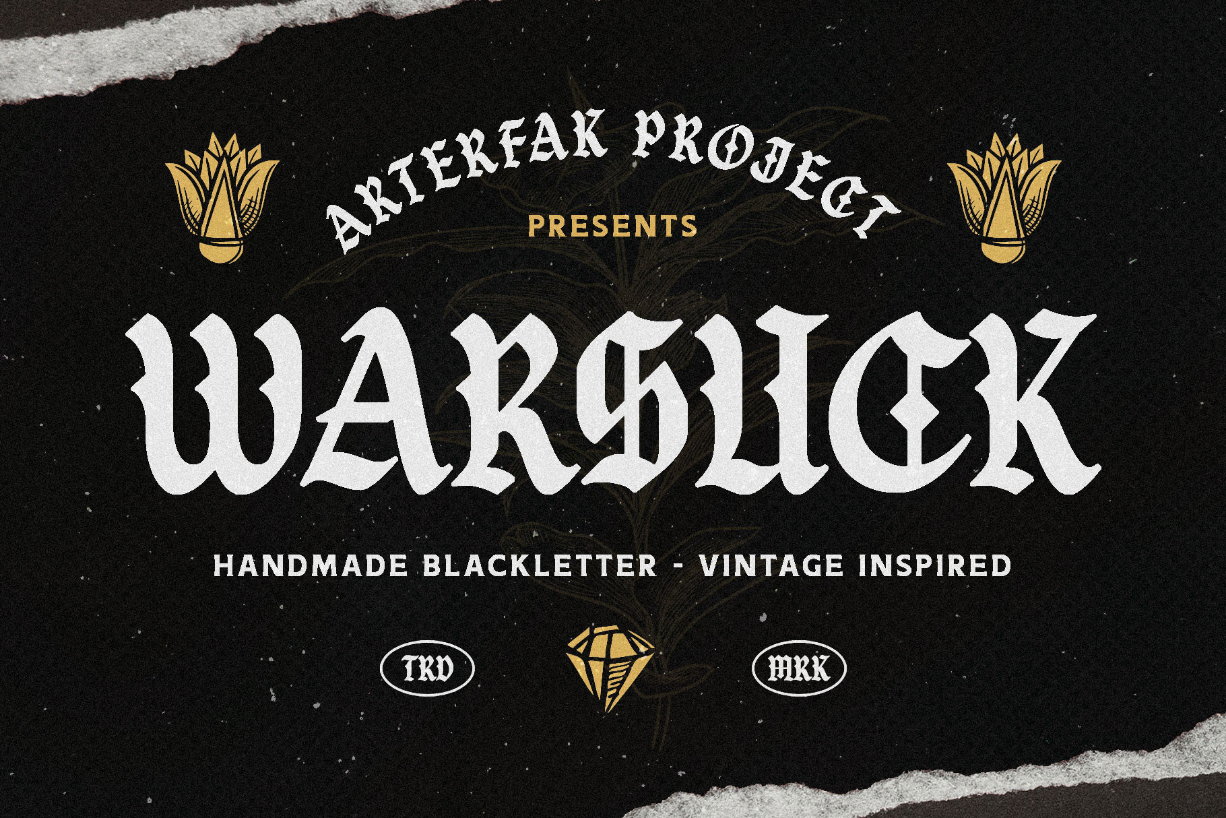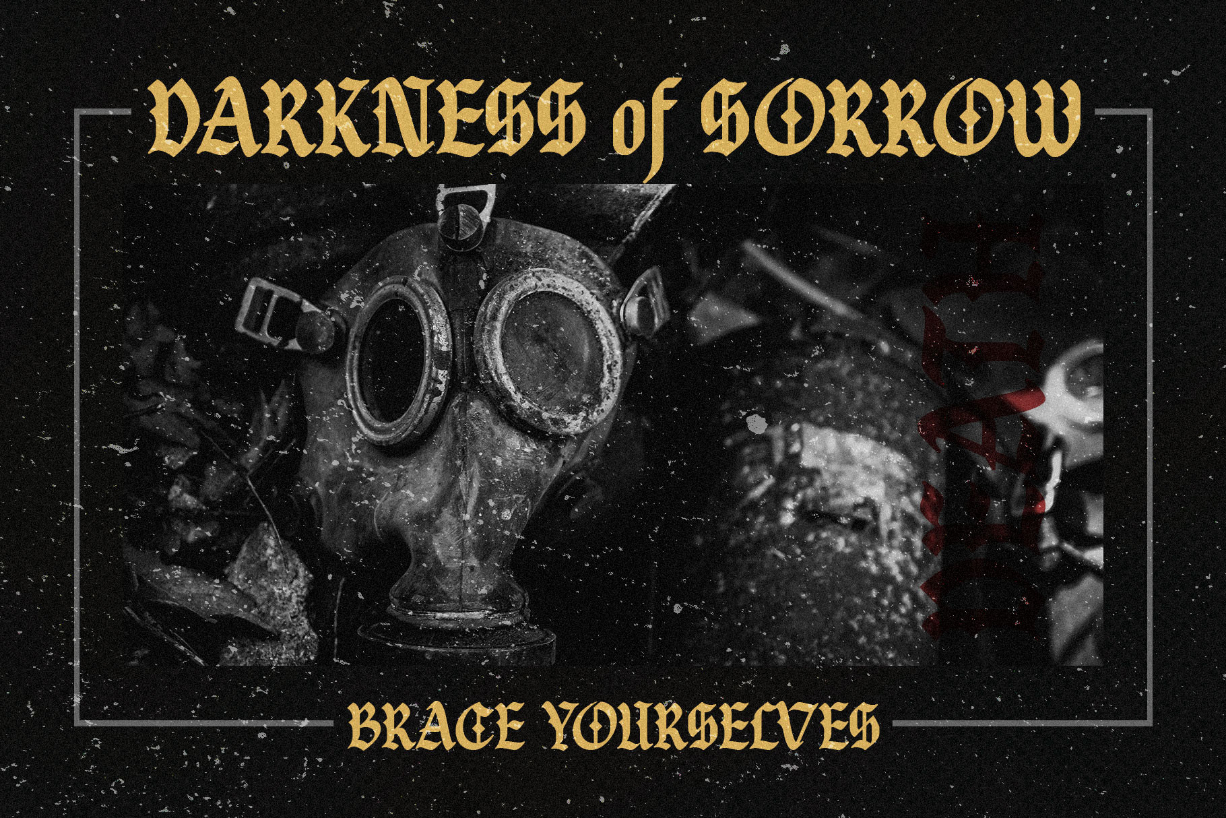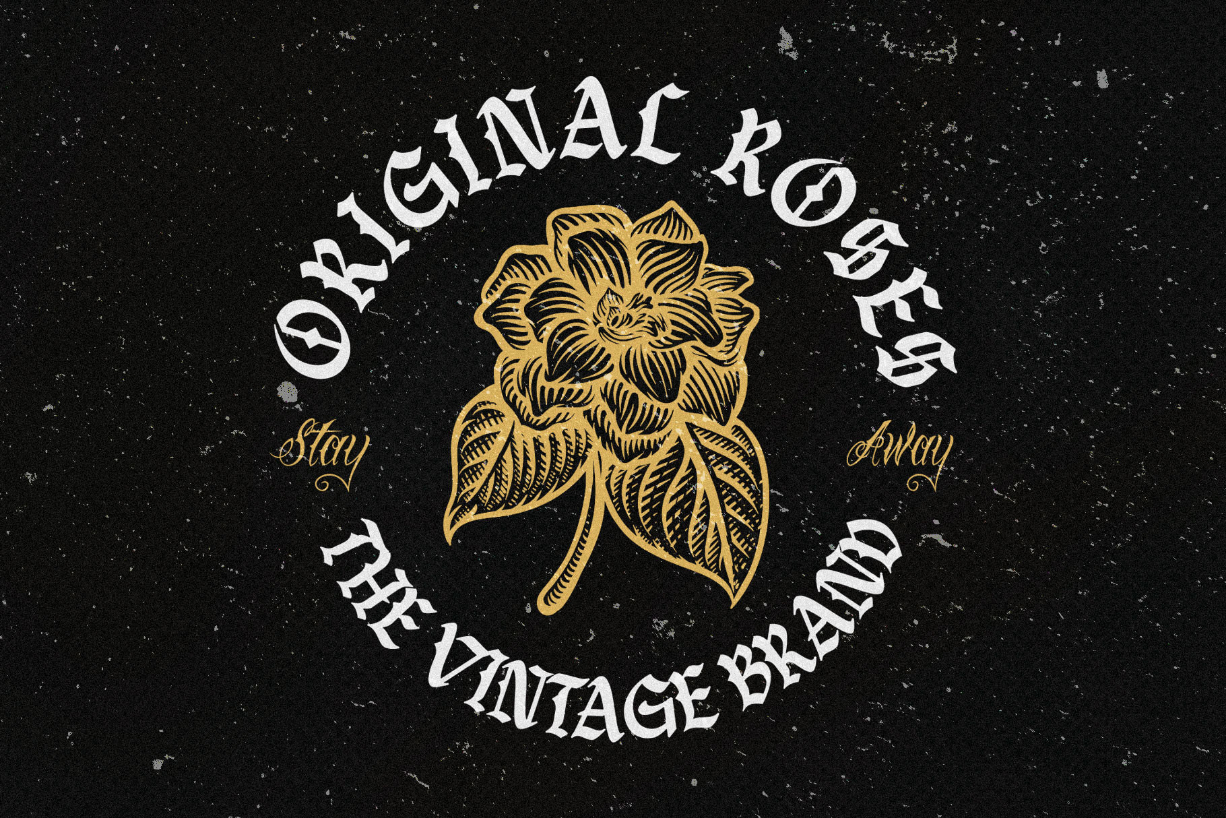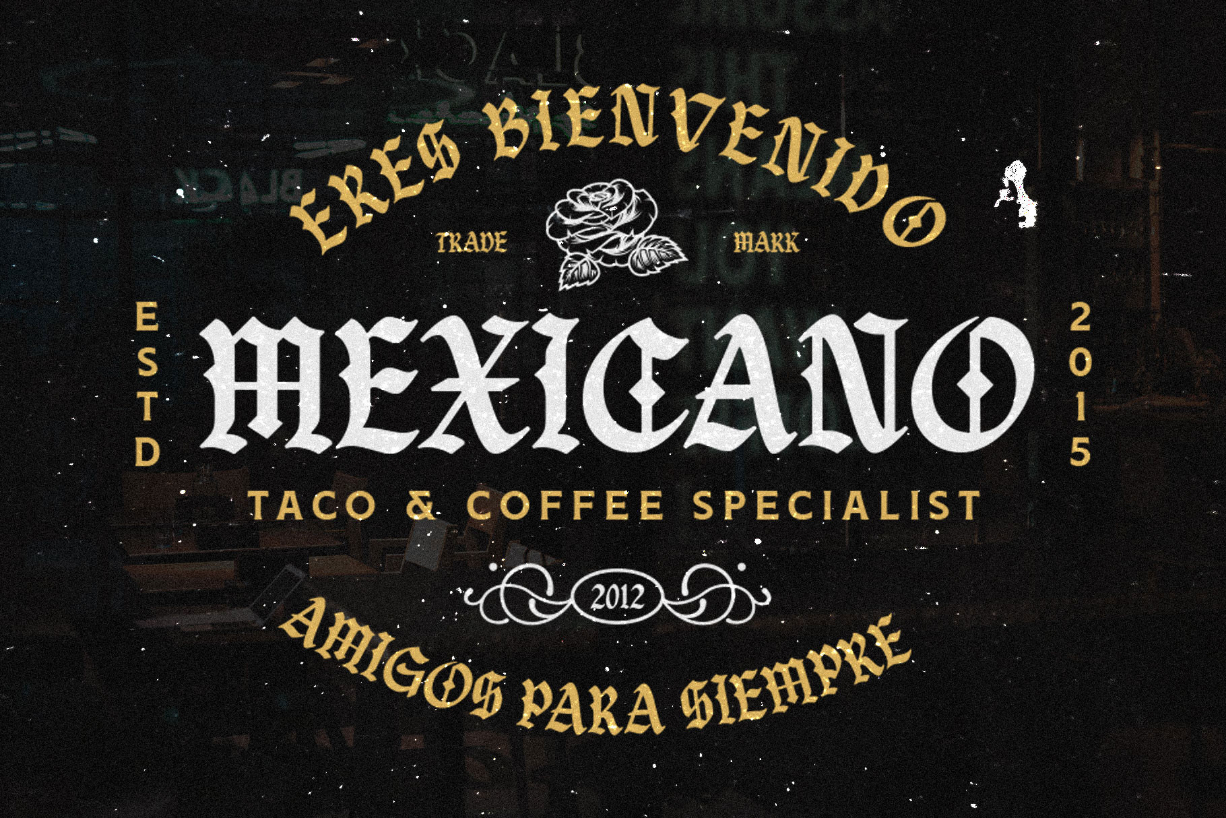
About Warsuck Font
Warsuck is a bold, thick lettered blackletter font. This font is suitable for designs such as t-shirts, sportswear, logos, advertisements, clothing, and more.